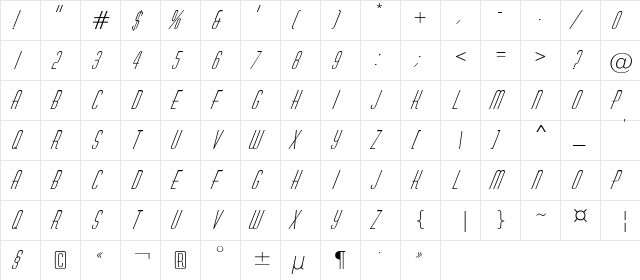
a_Huxley Italic Font Preview
a_Huxley Italic
a_Huxley Italic Font Details
Design Context for a_Huxley Typeface
a_Huxley takes a measured approach to typography — its balanced proportions and neutral character make it a reliable workhorse for both digital and print work. The slanted form adds forward momentum and visual energy.
Pro Tip: Try a_Huxley for annotation and caption copy alongside an upright companion — the contrast in angle creates a dynamic but ordered typographic system.